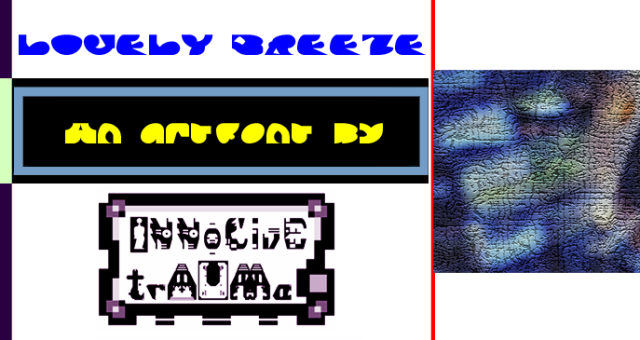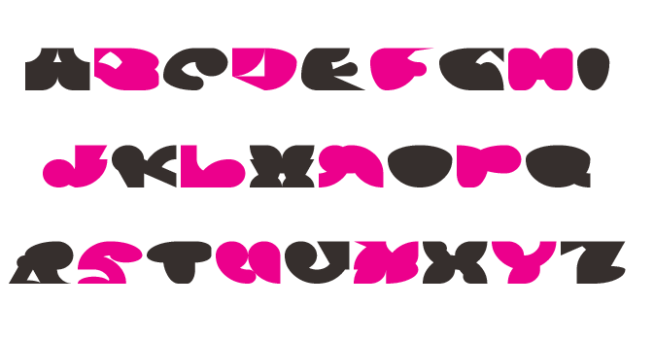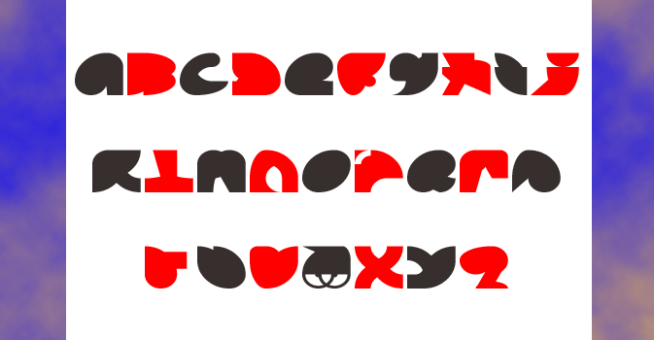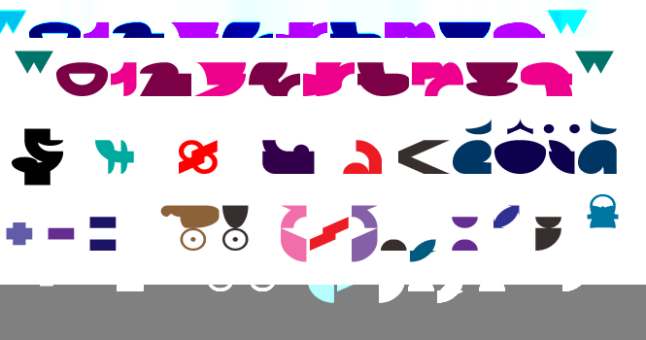
trAUMa 90 / Lovely Breeze
"Lovely Breeze", like all the "trAUMa" series, works at the frontier between Art & Type Design, Figuration & Abstraction, each font is a comprehensive world in which every glyph is a "living" entity. But put together they can produce your messages in the most accurate way.